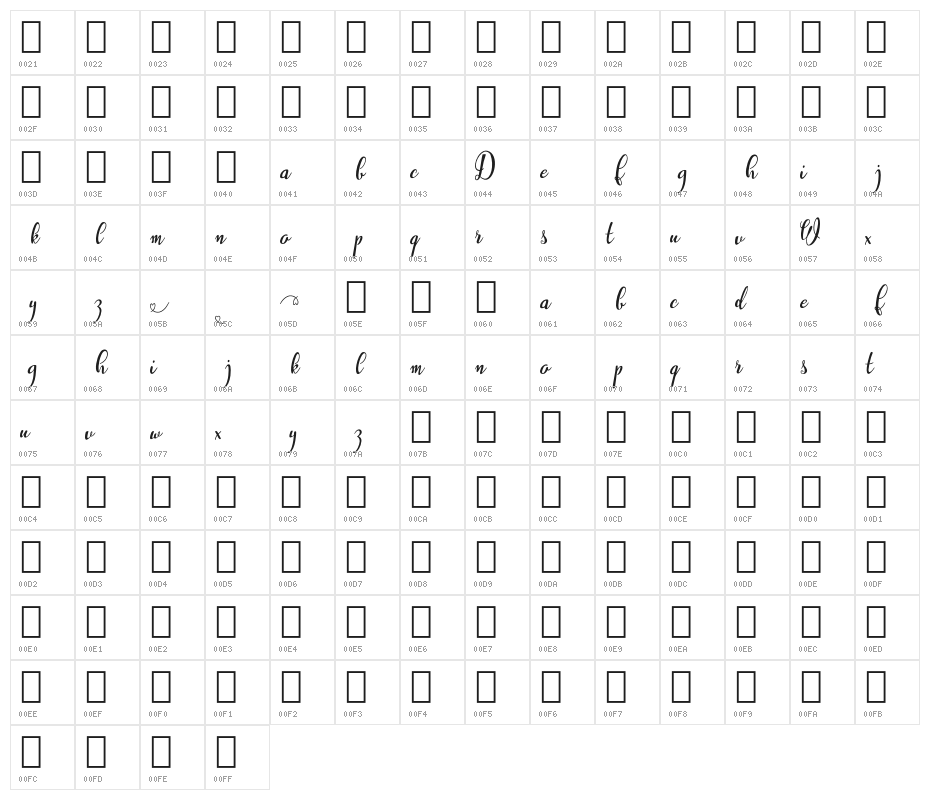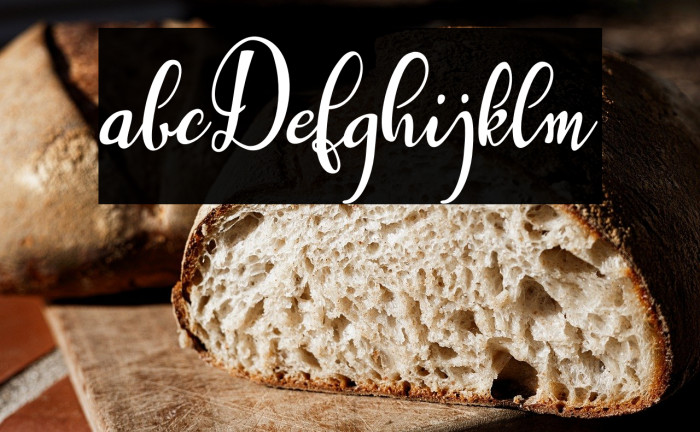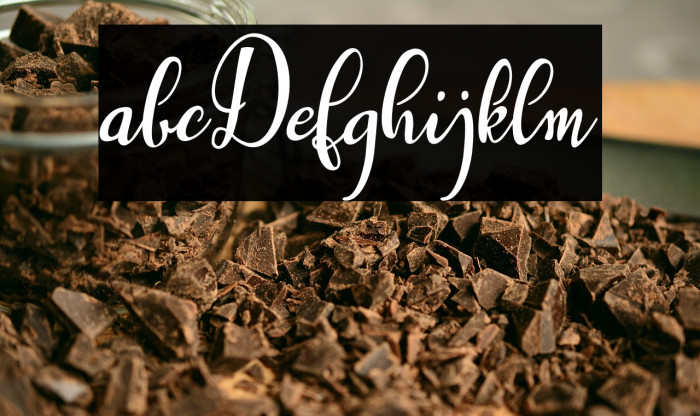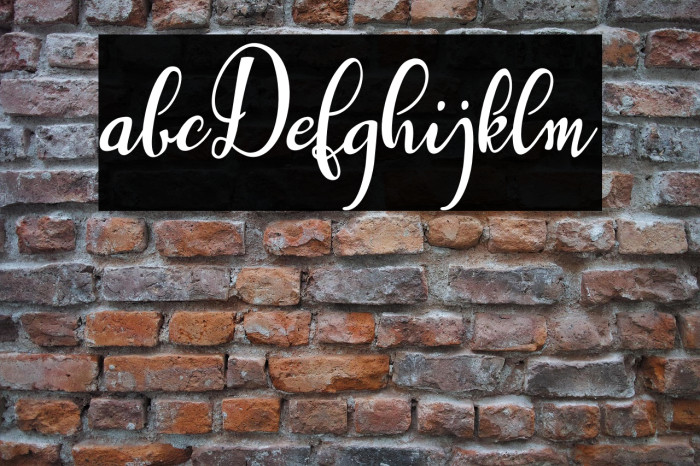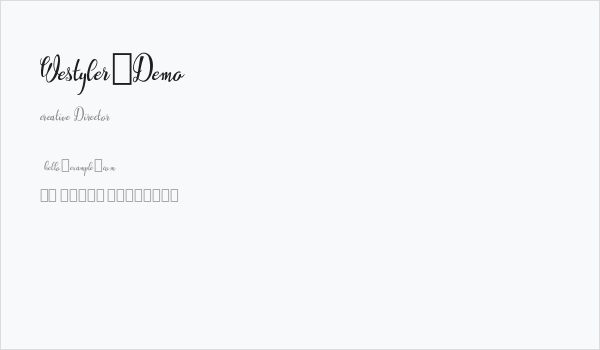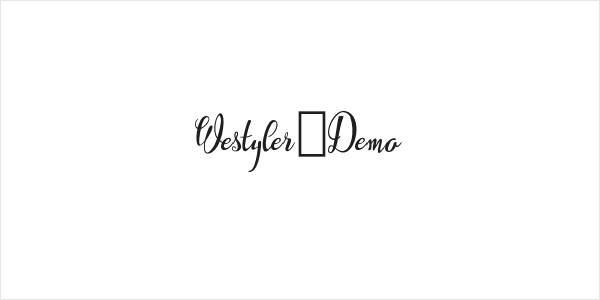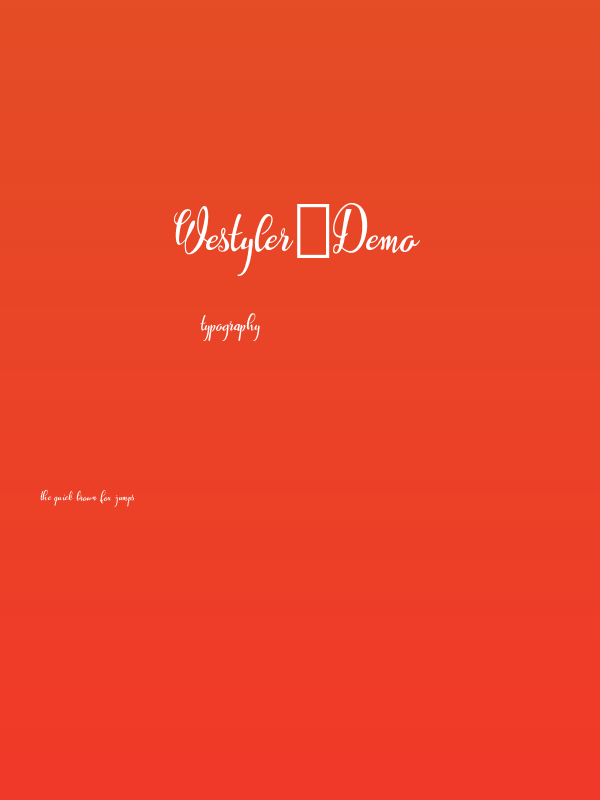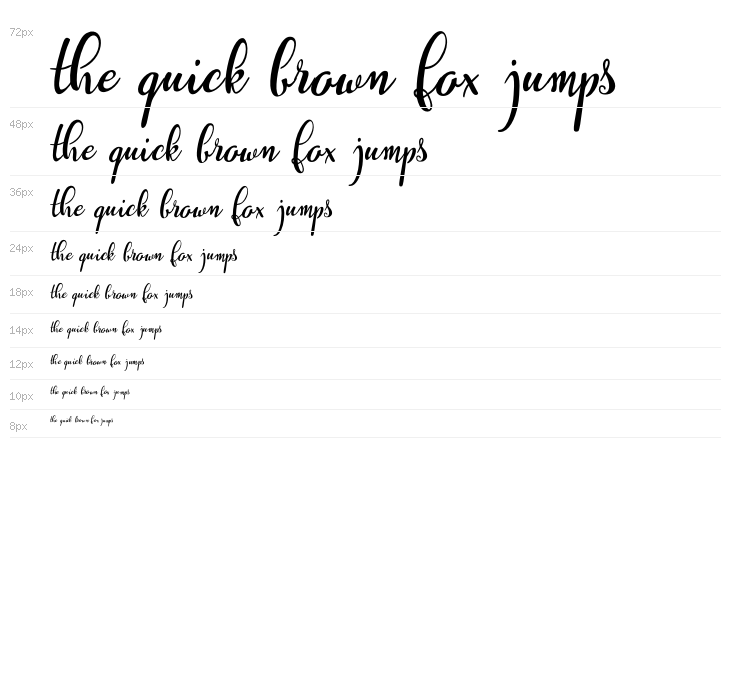
Westyler-Demo Font
Westyler-Demo Description
This font exhibits a flowing, cursive style with elegant, sweeping strokes that convey a sense of sophistication and grace. The characters are interconnected, creating a seamless and fluid appearance. The uppercase letters stand out with their elaborate loops and flourishes, while the lowercase letters maintain a consistent rhythm and balance. The overall design is reminiscent of traditional calligraphy, yet it maintains a modern touch with its clean lines and smooth curves. This font is ideal for projects that require a touch of elegance and refinement, such as wedding invitations, formal event programs, or luxury branding.
| Overall Style | Elegant, Modern, Calligraphic |
| Use Case | Headlines, Invitations, Branding |
| Proposed Projects | Wedding invitations, formal event programs, luxury branding, elegant stationery. |